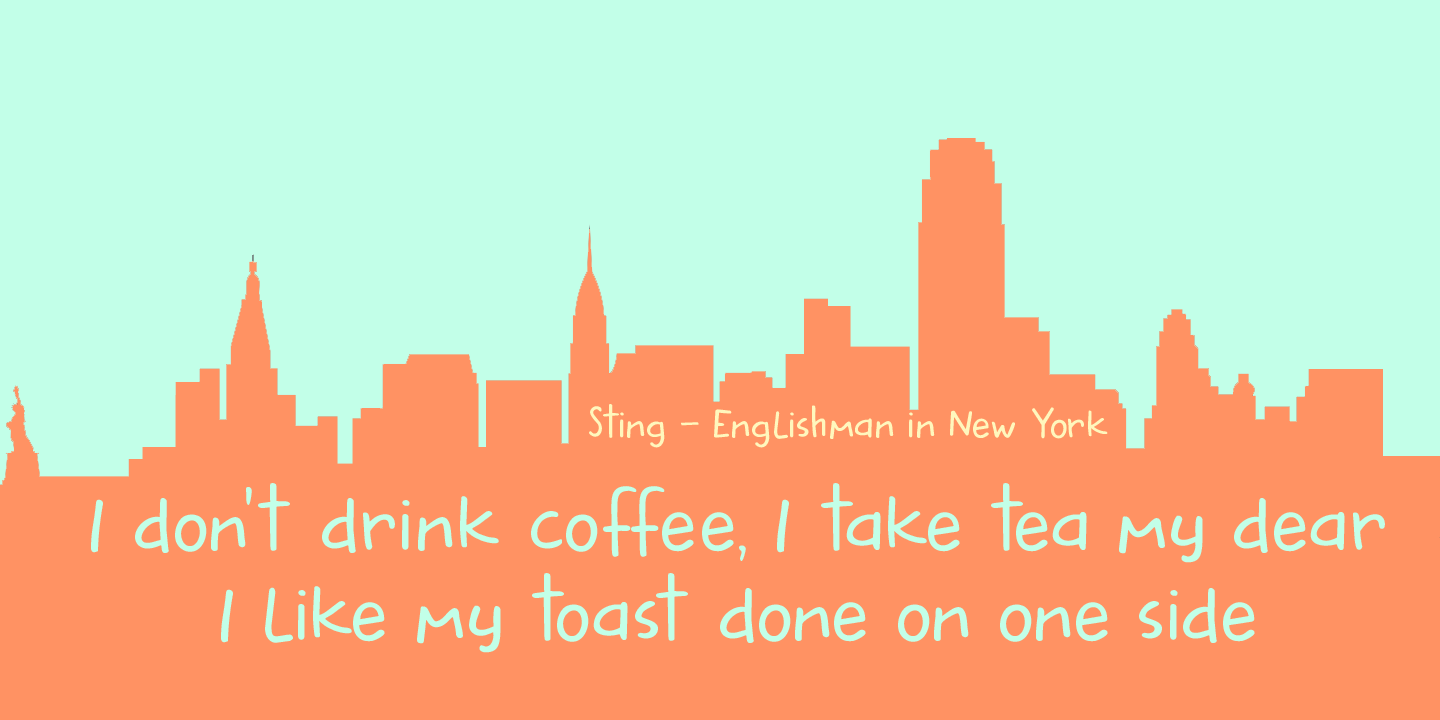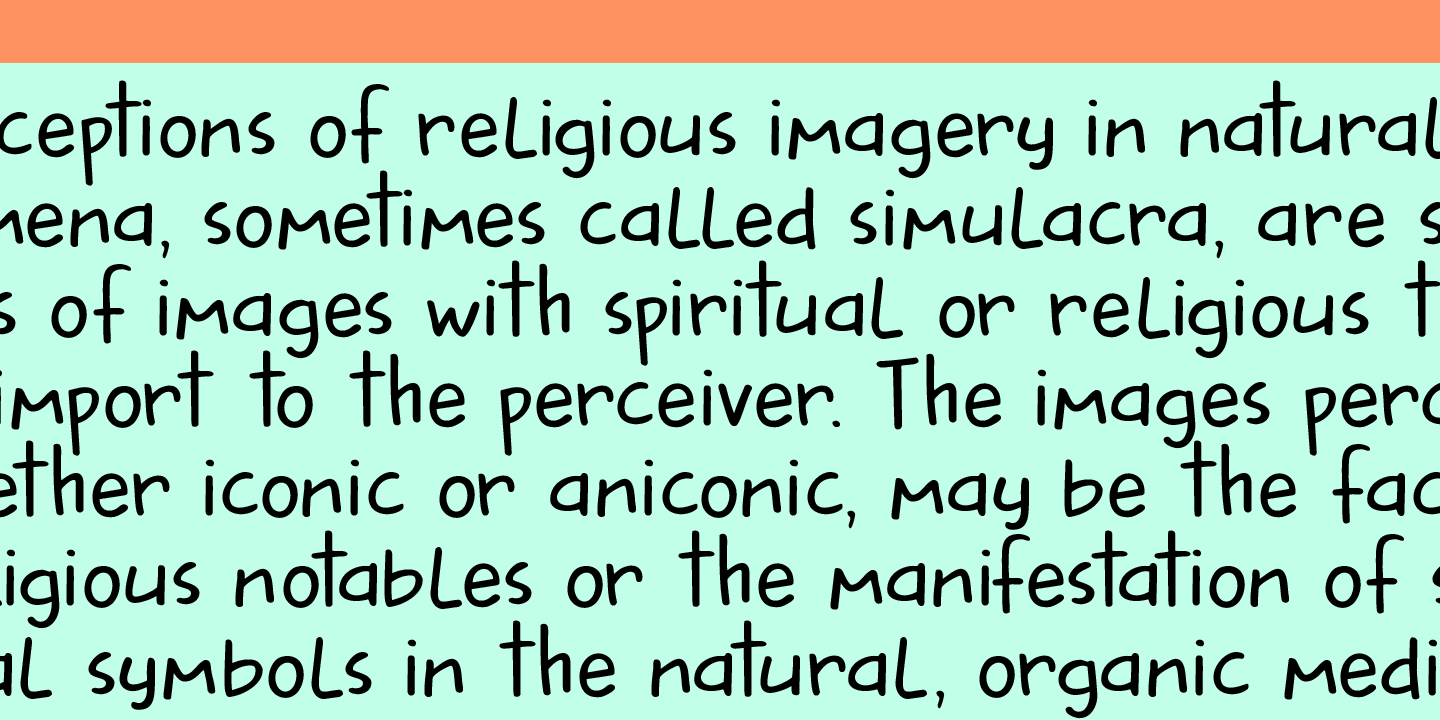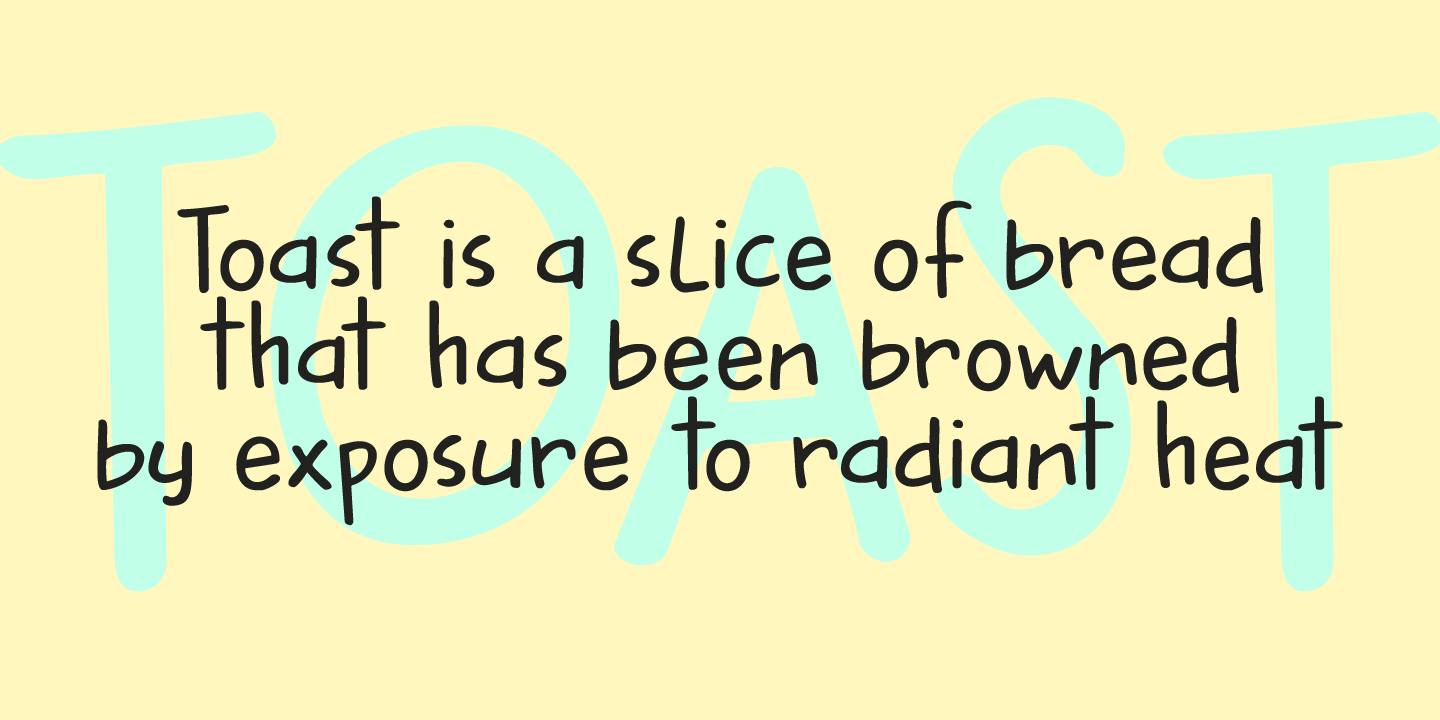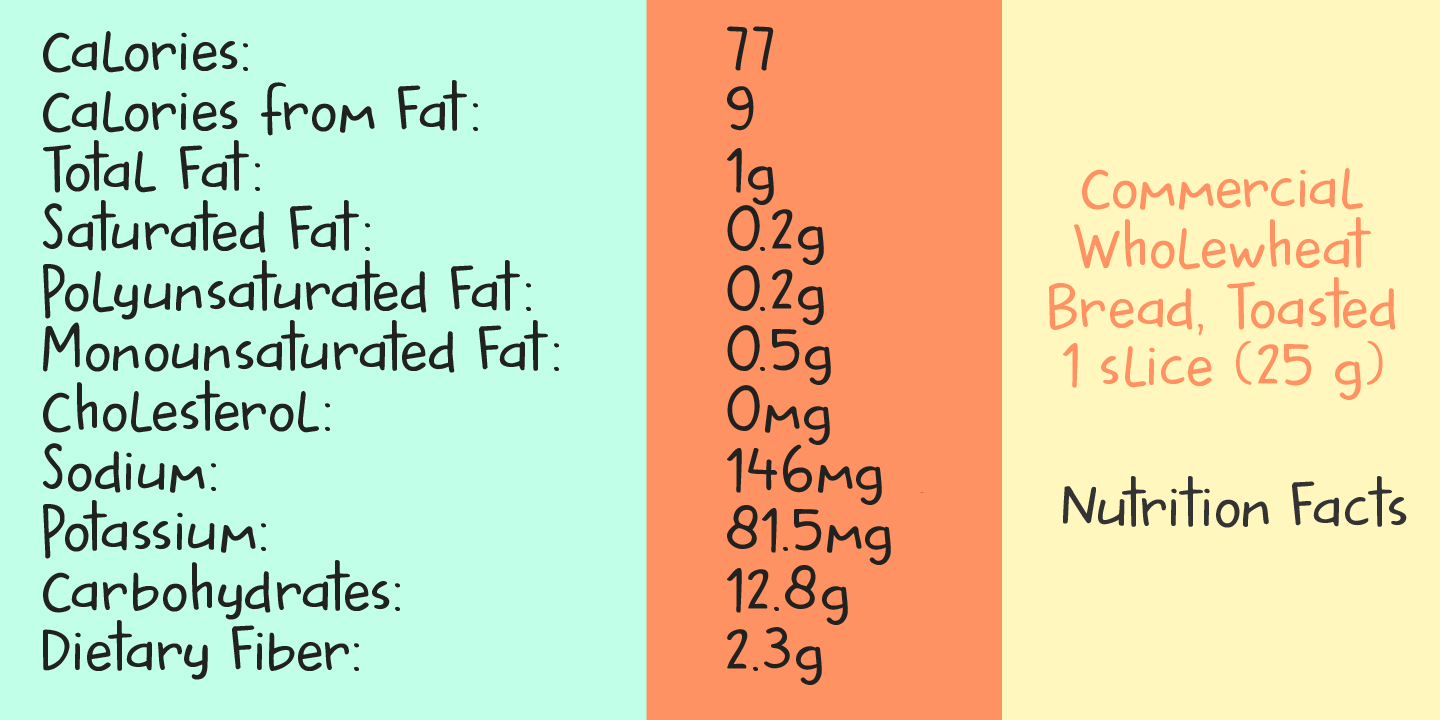
Buttered Toast
Buttered Toast is something a lot of people enjoy every day; when I was working on this font I was hoping to create something similar: an uncomplicated font enjoyed by many. The resulting typeface is exactly what is promised on the package: Buttered Toast is unobtrusive, yet quite refined. It may even be taken for granted, but I sure hope it will be used and enjoyed by many. Buttered Toast comes with a generous helping of diacritics.